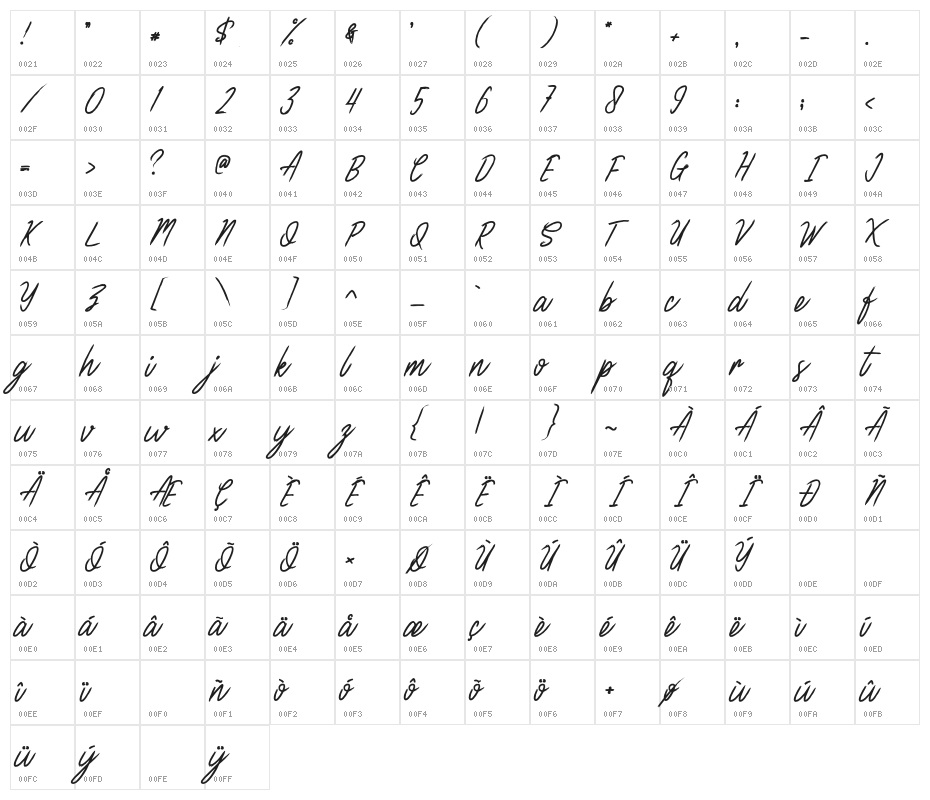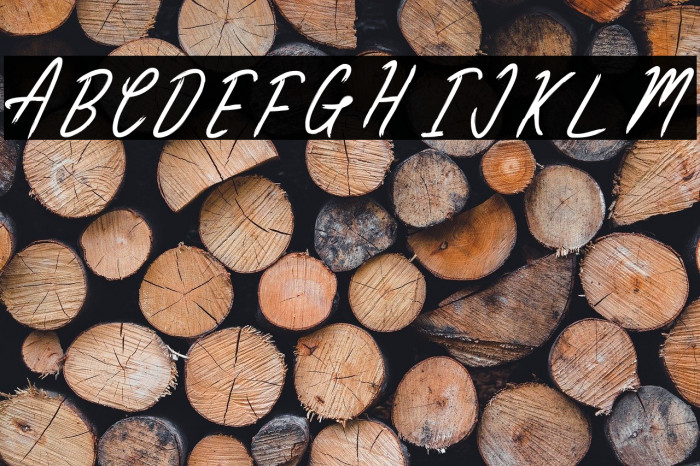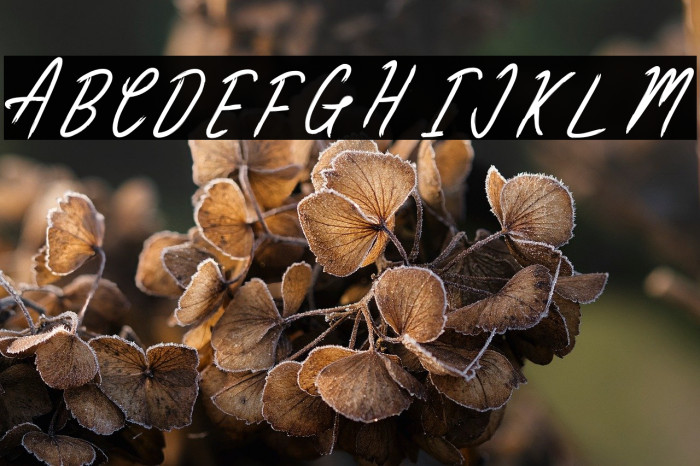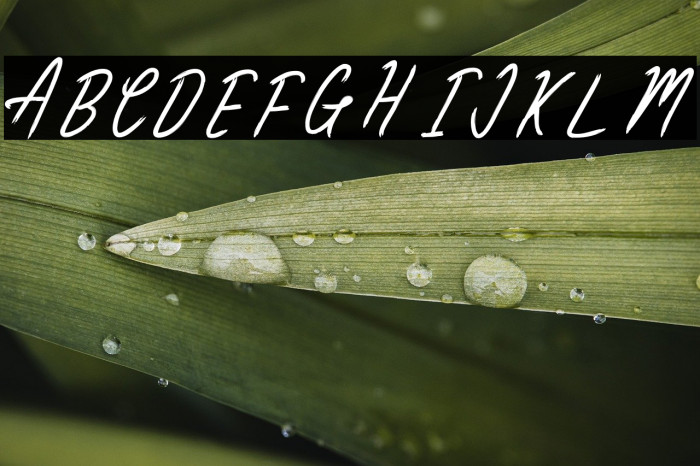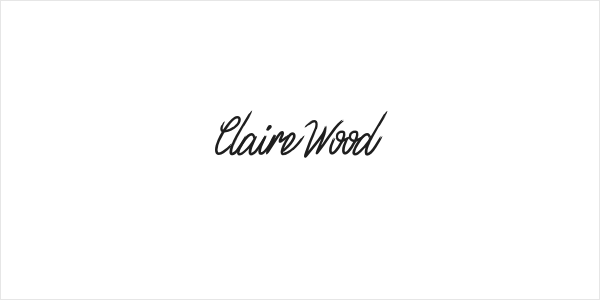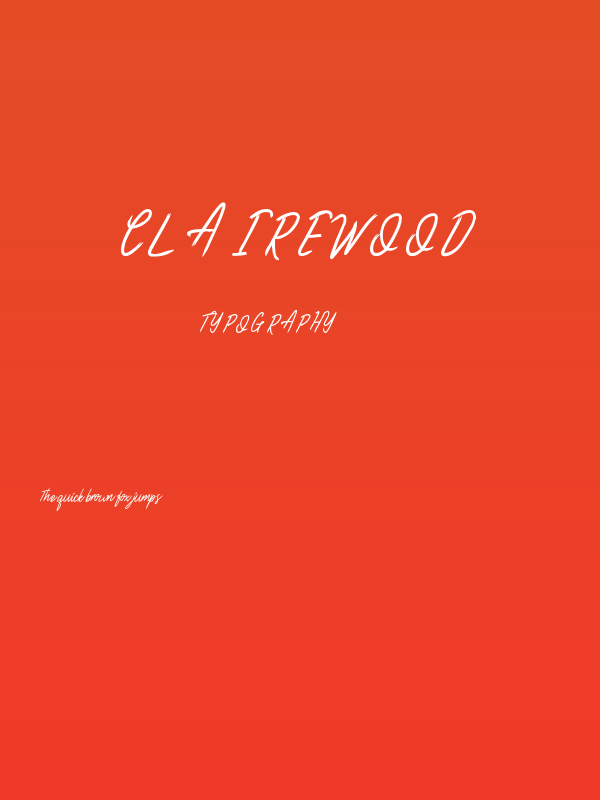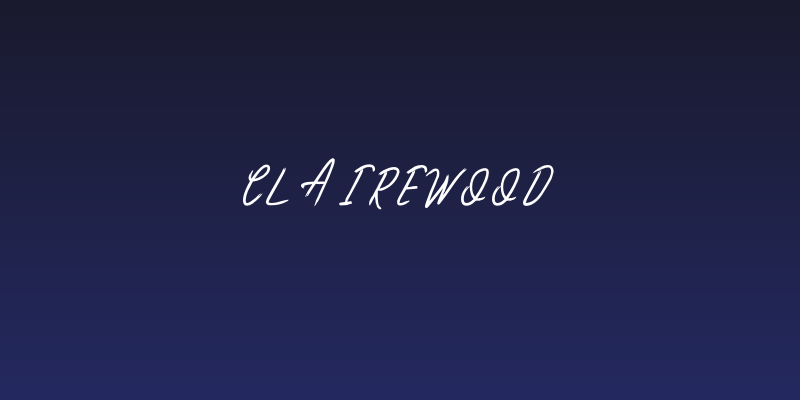
ClaireWood Font
ClaireWood Description
This font exhibits a fluid and elegant script style, characterized by its cursive, handwritten appearance. The letters are interconnected, creating a seamless flow that mimics natural handwriting. The strokes are moderately thick, providing a balanced contrast that enhances readability while maintaining an artistic flair. The uppercase letters are slightly more elaborate, with subtle flourishes that add sophistication. The lowercase letters maintain consistency in style, contributing to the overall harmony of the font. Numbers and special characters are designed to complement the alphabet, ensuring versatility across various applications.
| Overall Style | Elegant, Handwritten |
| Proposed Projects | Ideal for wedding invitations, greeting cards, personal branding, and elegant packaging designs. |